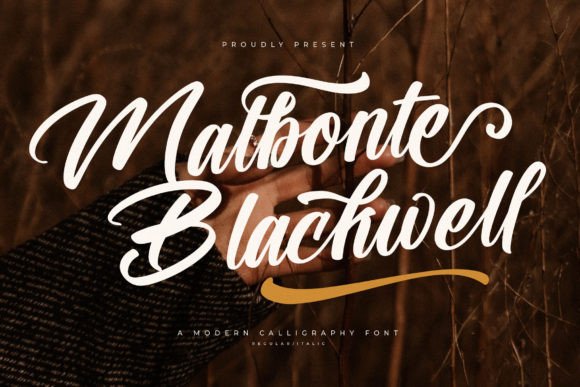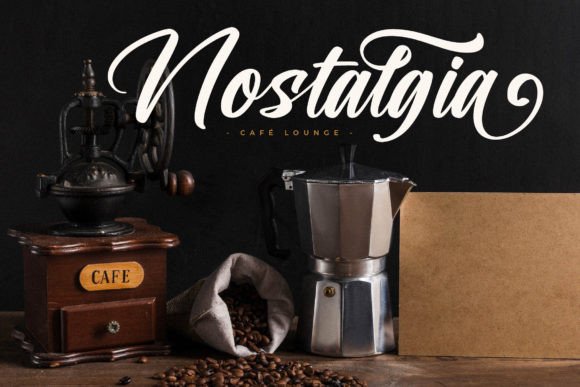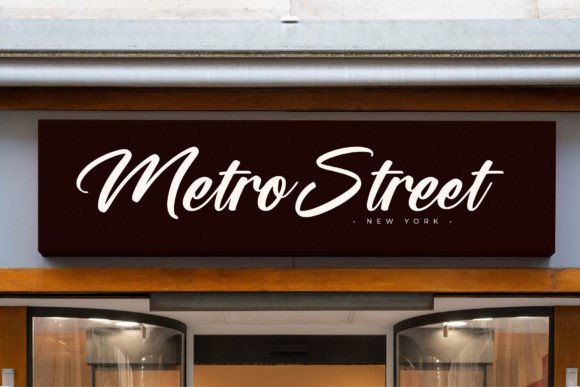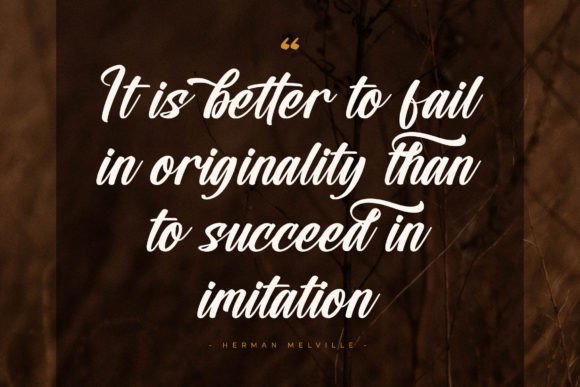
Malbonte Blackwell Font
About the Malbonte Blackwell Font
The wait is over! The incredible Malbonte Blackwell Font is now available for your design toolkit. Malbonte Blackwell is a cool and trendy handwritten font. It looks beautiful on a variety of designs requiring a personalized style, such as wedding invitations, thank you cards, greeting cards, logos, and so on.
Malbonte Blackwell’s informal, handwritten style thrives in applications demanding a personal touch, such as logos, short headlines, and social media graphics. It excels in branding for boutique businesses, artisan crafts, or products targeting a younger demographic. However, its legibility suffers in extended text; avoid using it for body copy, long paragraphs, or user interface elements.
Pair it with a clean sans-serif like Lato or Open Sans for a balanced contrast, or a playful script font for a cohesive yet varied look. For a more sophisticated feel, a classic serif like Garamond or Merriweather provides a strong counterpoint.
Its overall personality is best described as friendly yet stylish, conveying a sense of approachability without sacrificing a modern aesthetic.
Malbonte Blackwell Font Usage Examples
Malbonte Blackwell Font Example